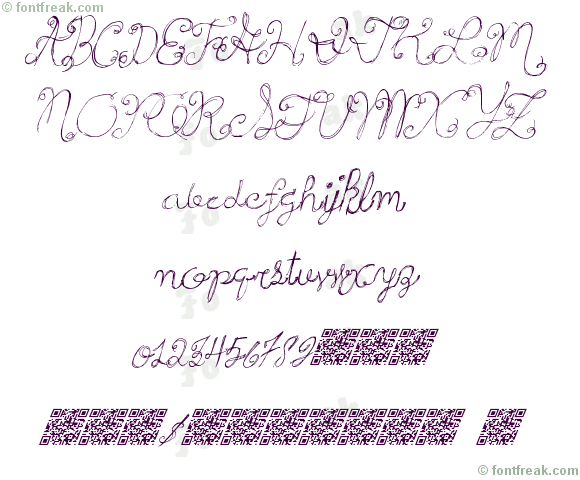
About PrincessCake
The PrincessCake font by Xerographer Fonts is a delightful script typeface that embodies a whimsical and playful character. Released in 2014, this decorative font features a light and flowing style, characterized by its elegant strokes and charming curves. The stroke weight is relatively thin, providing a sense of delicacy, while the contrasting elements give it a lively, dynamic presence. The spacing is well-balanced, allowing for legibility without sacrificing the font's artistic flair. Decorative elements, such as swirls and loops, enhance its enchanting appeal, making it perfect for various creative projects.
The PrincessCake font shines in specific use cases where a touch of whimsy is essential. It is ideal for wedding invitations, where its romantic style can set the tone for a special day. Additionally, it works wonderfully for birthday party invitations, particularly those aimed at children or themed events. The font can also elevate the design of menu boards for bakeries or cafes, giving a sweet and inviting feel to the printed material. Other applications include greeting cards and fun event posters, where its playful character can draw attention and create a festive atmosphere.
What sets the PrincessCake font apart is its ability to evoke joy and charm through its playful design. Whether used for personal or professional projects, this font captures attention and leaves a lasting impression, making it a standout choice for anyone looking to infuse their work with a sense of magic and delight.